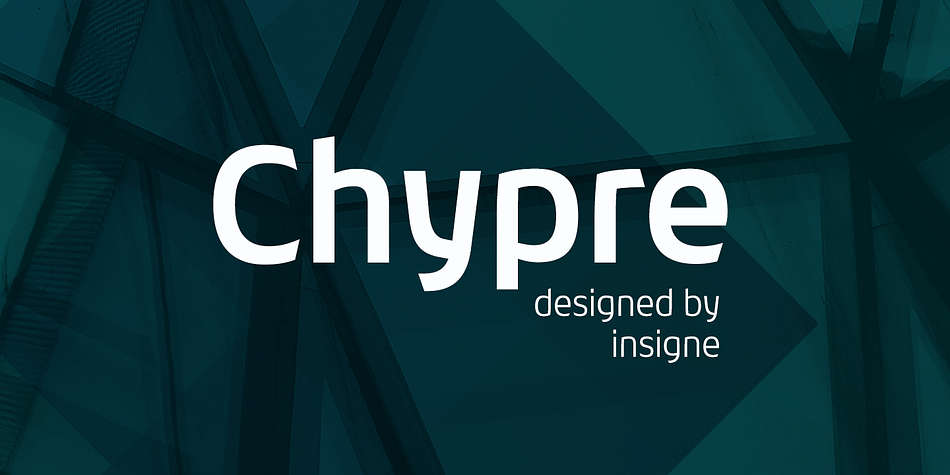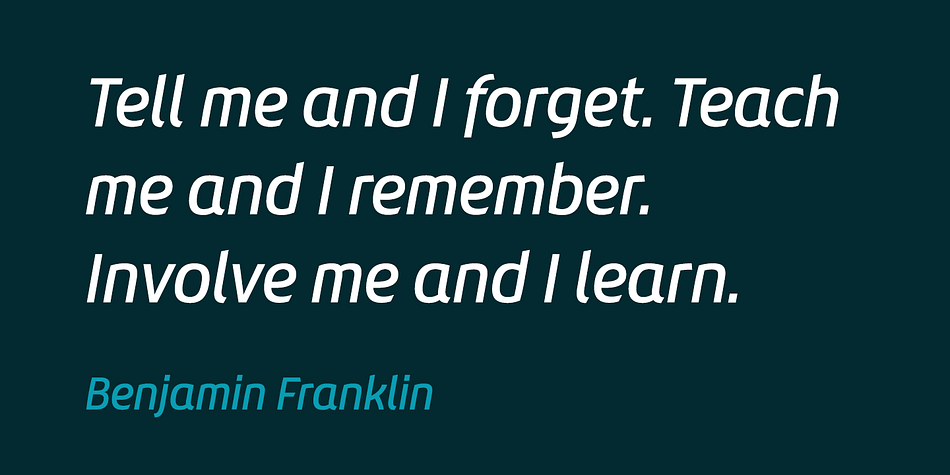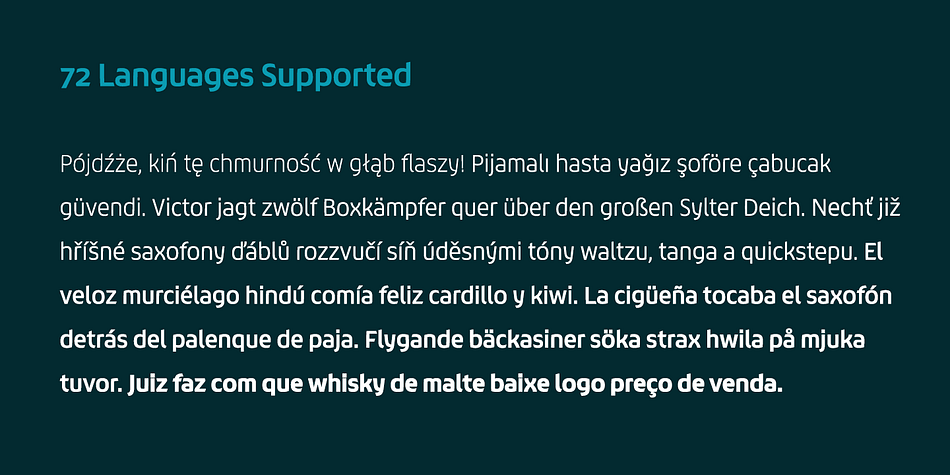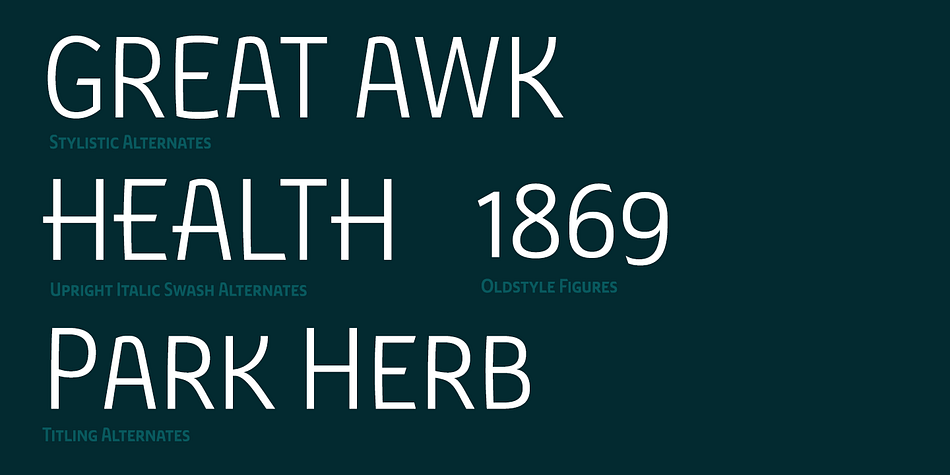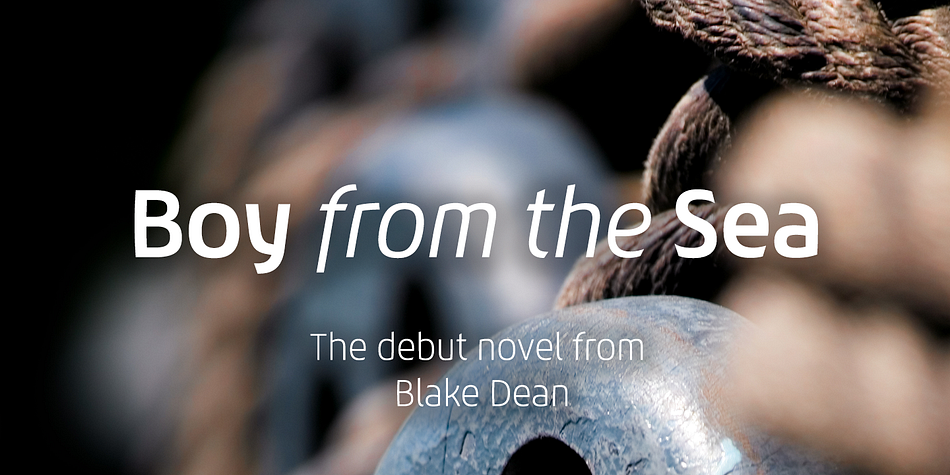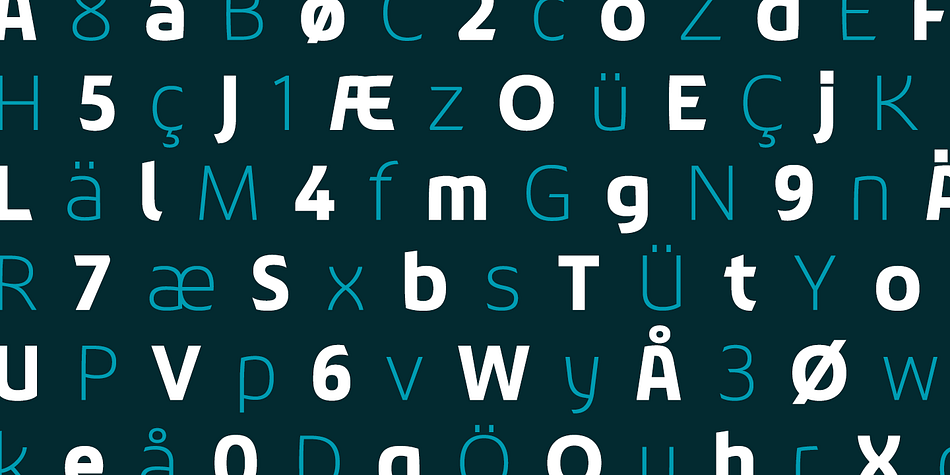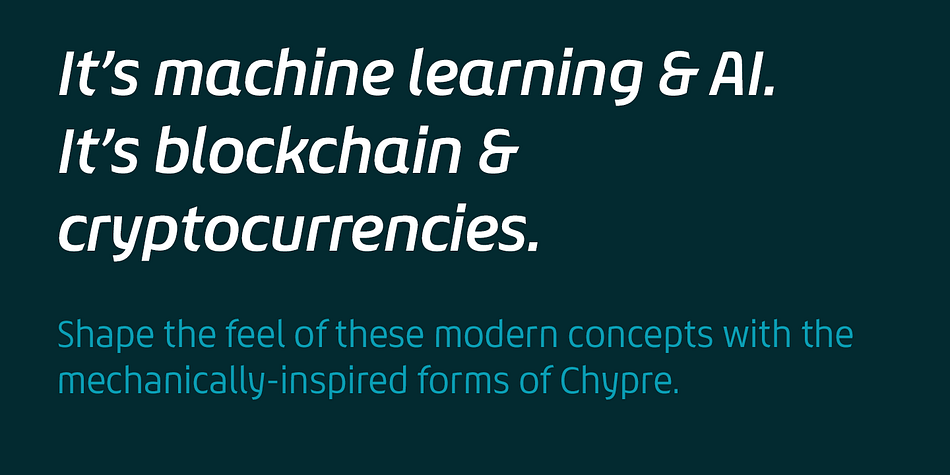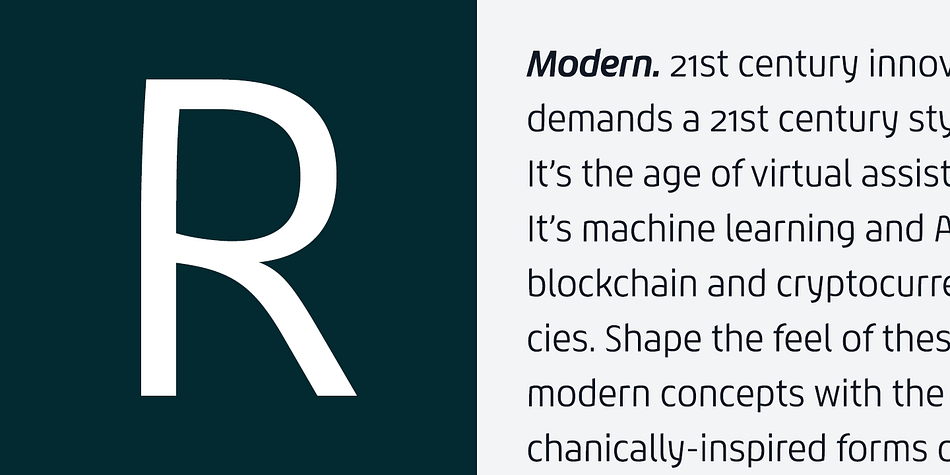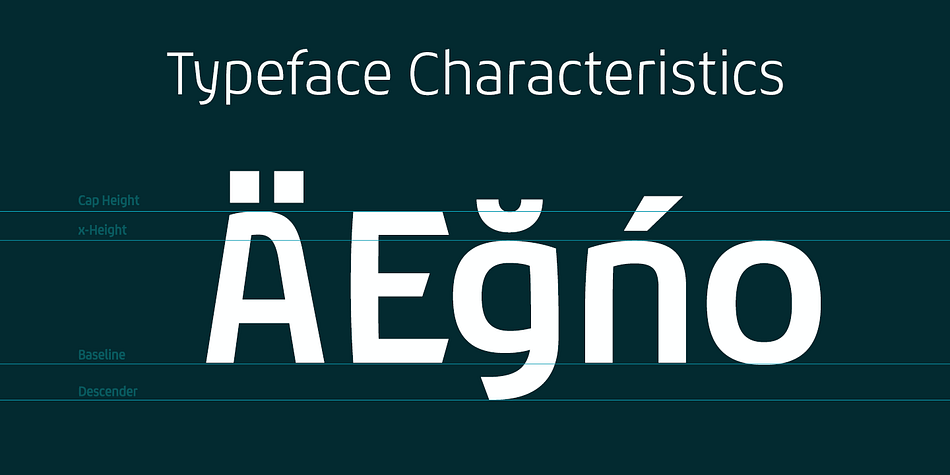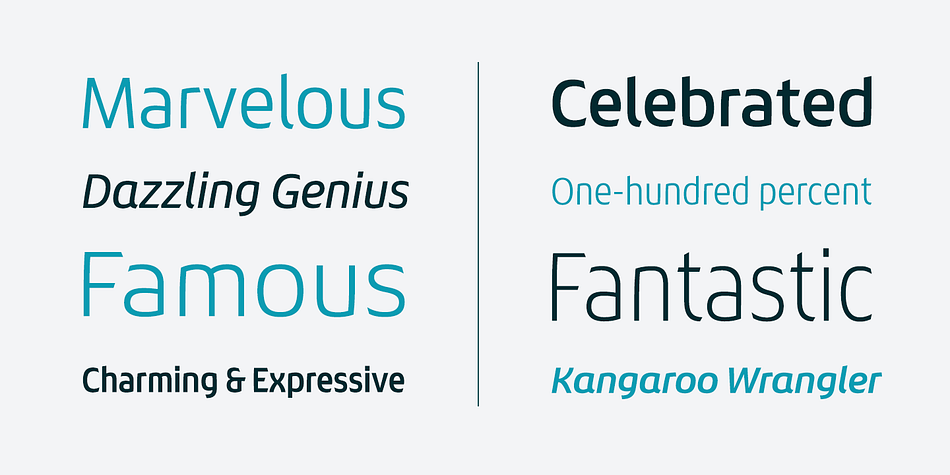
Designed by Jeremy Dooley, Chypre is a sans serif font family. This typeface has fifty-four styles and was published by Insigne Design.
21st century innovation demands a 21st century style. It’s the age of virtual assistants. It’s machine learning and AI. It’s blockchain and cryptocurrencies. Shape the feel of these modern concepts with the mechanically-inspired forms of Chypre.
Chypre’s subtle technological feel is perfect for our culture’s evolving electronic media applications. At its source, the carefully adjusted character designs and the balanced weight contrast convey to the modern reader an understanding of cutting edge concepts through a pleasing human feel. Unlike many other tech-driven fonts out there, this next-gen cyborg is a great option for text settings as well as headlines.
The new face is composed of six styles, including numerous alternates which dramatically alter the appearance. There are also extra letter shapes, numerous figure options, and extensive language support. Designed to fit where you need a high-tech feel, Chypre is a modern font for a modern age.